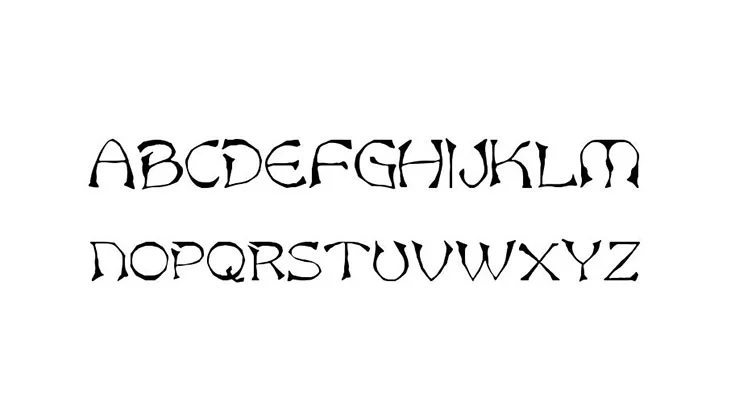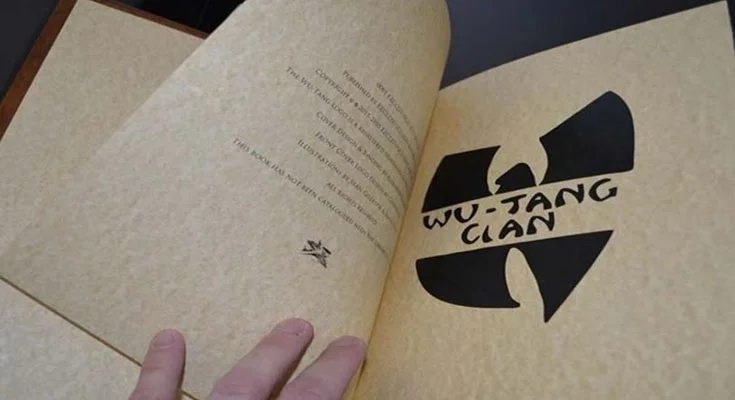
Introducing WU Tang Font! It is a logo font that we saw in the WU Tang title. It is an American hip-hop group formed in New York in 1992.
This group has a total of 9 members and all of them are big rappers. This group released an album Enter the Wu-Tang, which is considered one of the greatest hip hop albums of all time.
After that, WU Tang achieved incredible success and now has many fans all over the world. You may also know this rap group if you are a music lover.
The font family used for the Wu Tang logo is very similar to the Bamboo Normal font. It is a sophisticated font that looks elegant and cool.
This tyepface has come with a single style that possesses 206 number of glyphs with 1200 units per em. Also, that has a 1623 height and 1872 width.